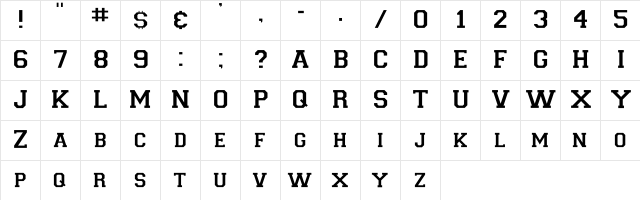
Collegiate-Insi Regular
Design Context for Collegiate-Insi Typeface
Collegiate-Insi offers clean, dependable letterforms without strong stylistic allegiance, making it a practical choice for designers who need flexibility.